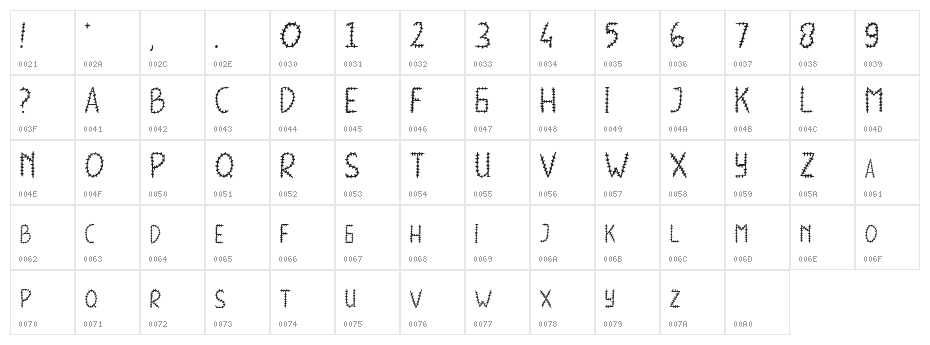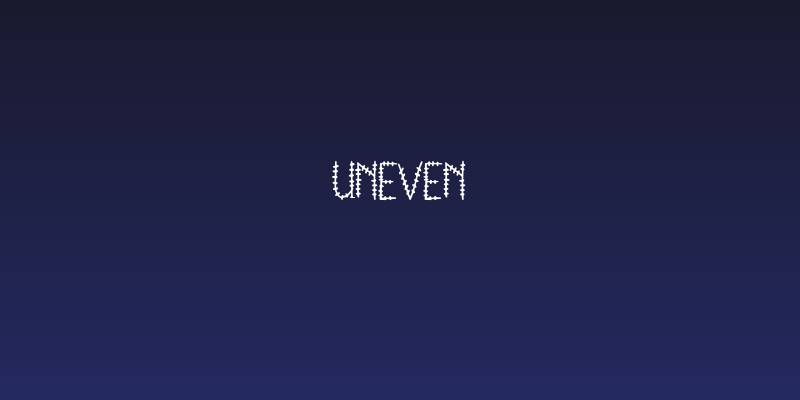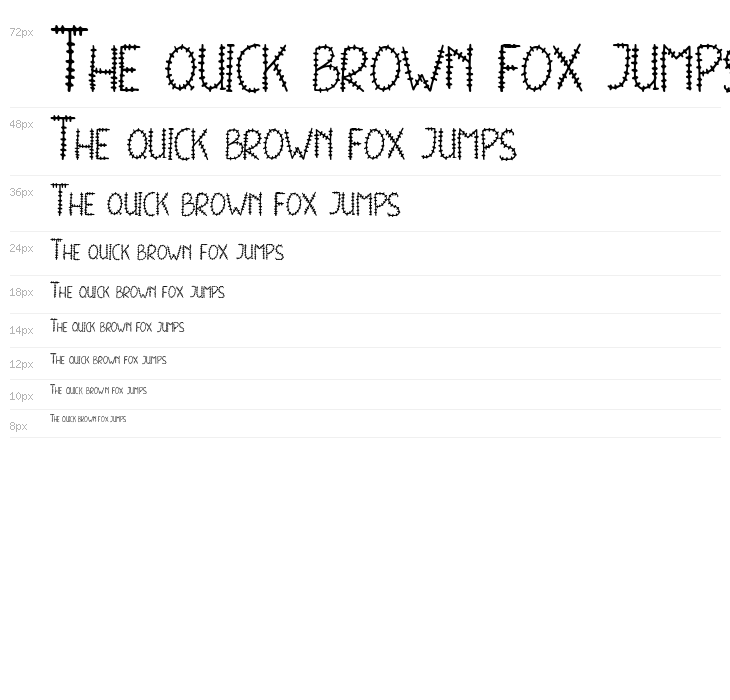
Uneven Font
Uneven Description
This font features a unique, jagged design that resembles a series of interconnected spikes or thorns. Each character is crafted with an irregular, edgy outline that gives it a distinct, rugged appearance. The uppercase and lowercase letters maintain a consistent style, with sharp angles and a playful, almost chaotic arrangement. Numbers and special characters follow the same design principles, ensuring a cohesive look across all glyphs. The font's unconventional style makes it stand out, offering a bold statement in any design project.
| Proposed Projects | Ideal for Halloween-themed designs, edgy posters, album covers, or any project requiring a bold, unconventional typeface. |